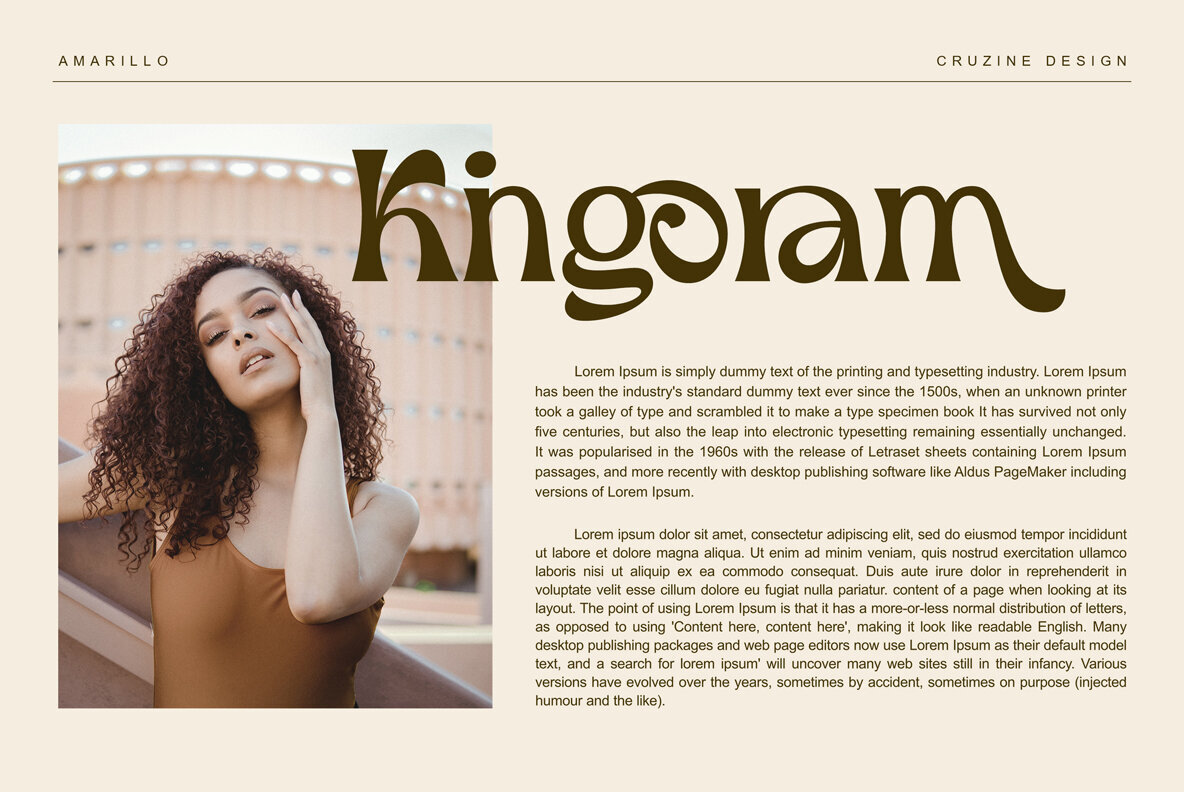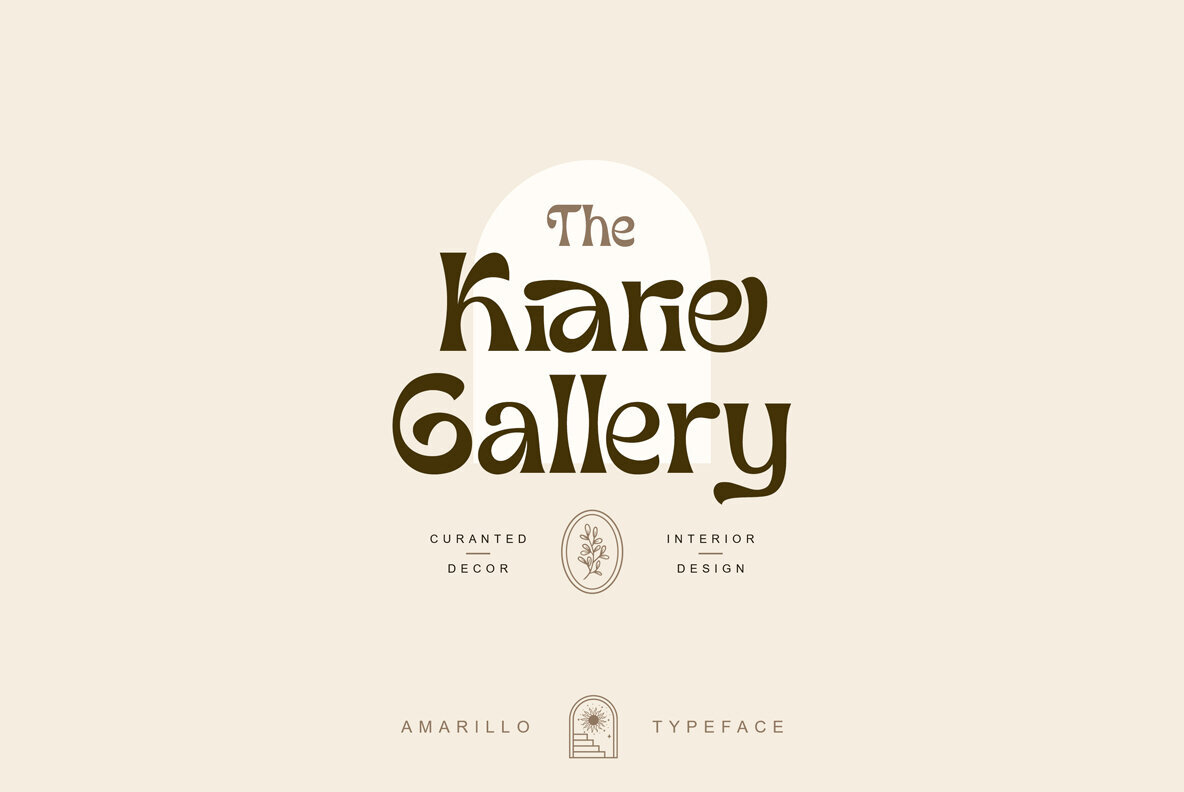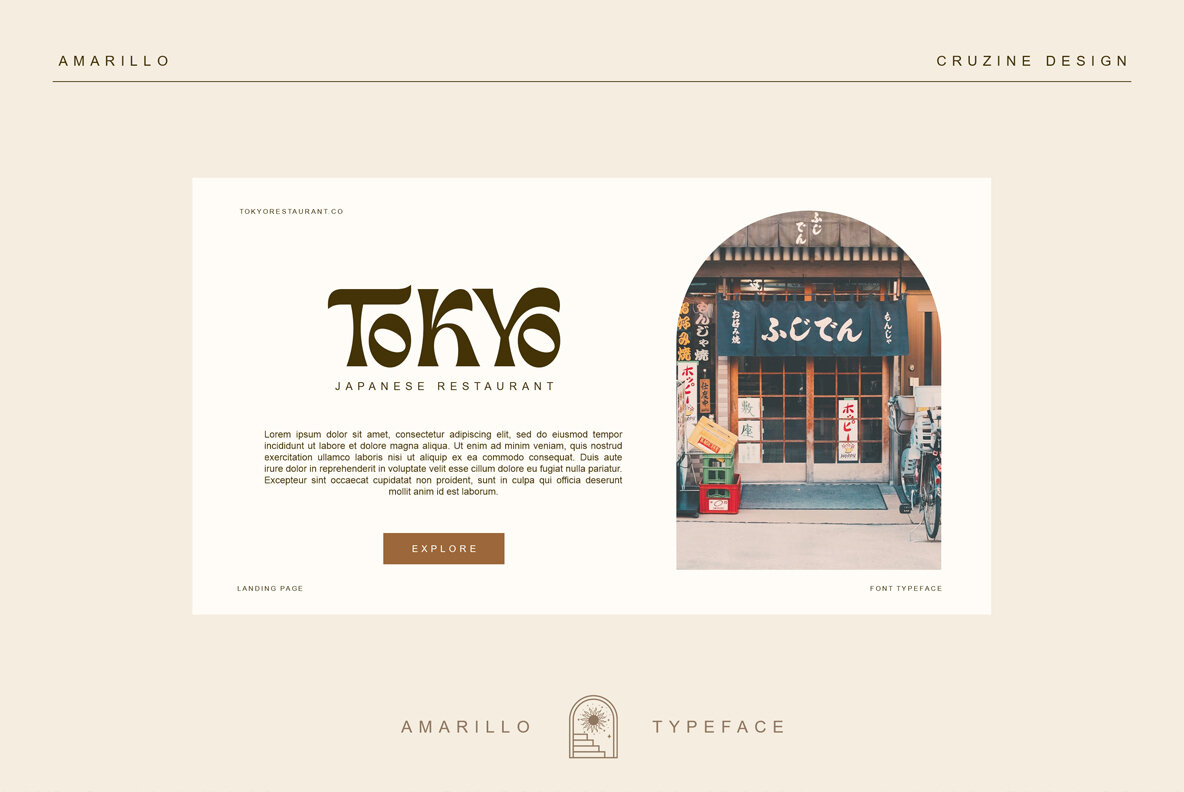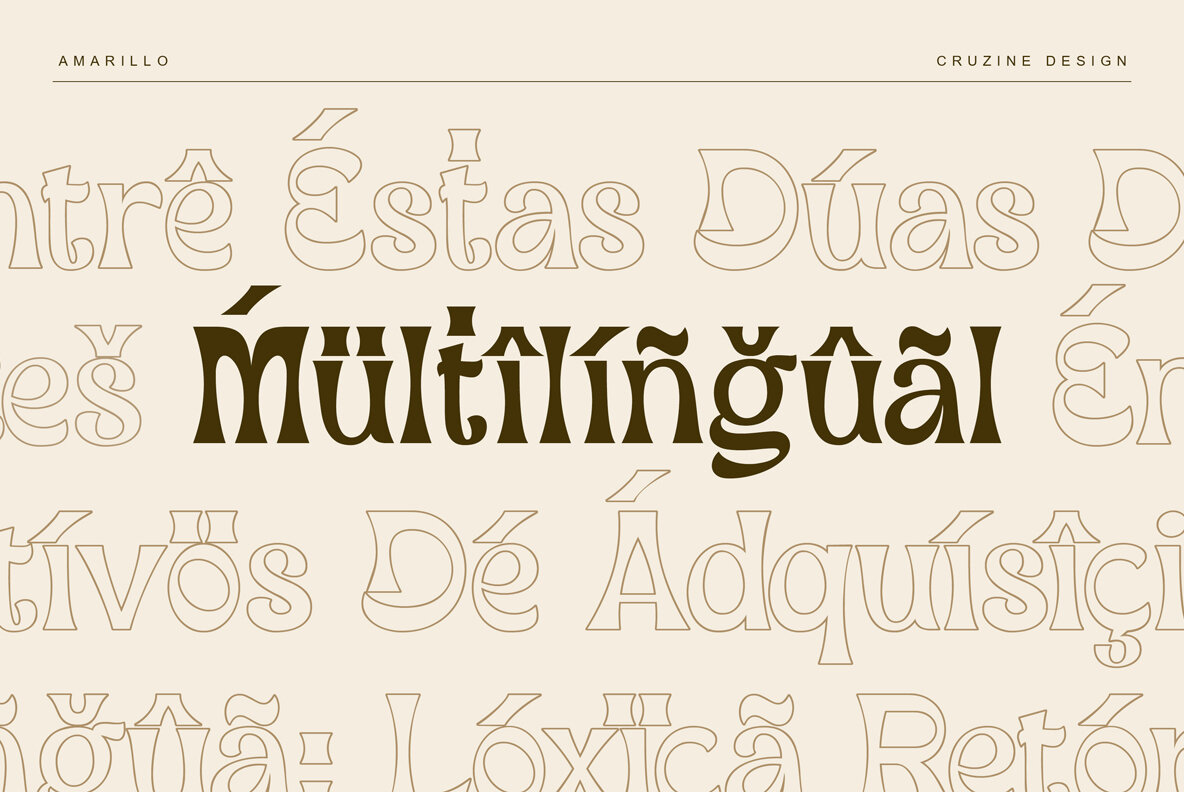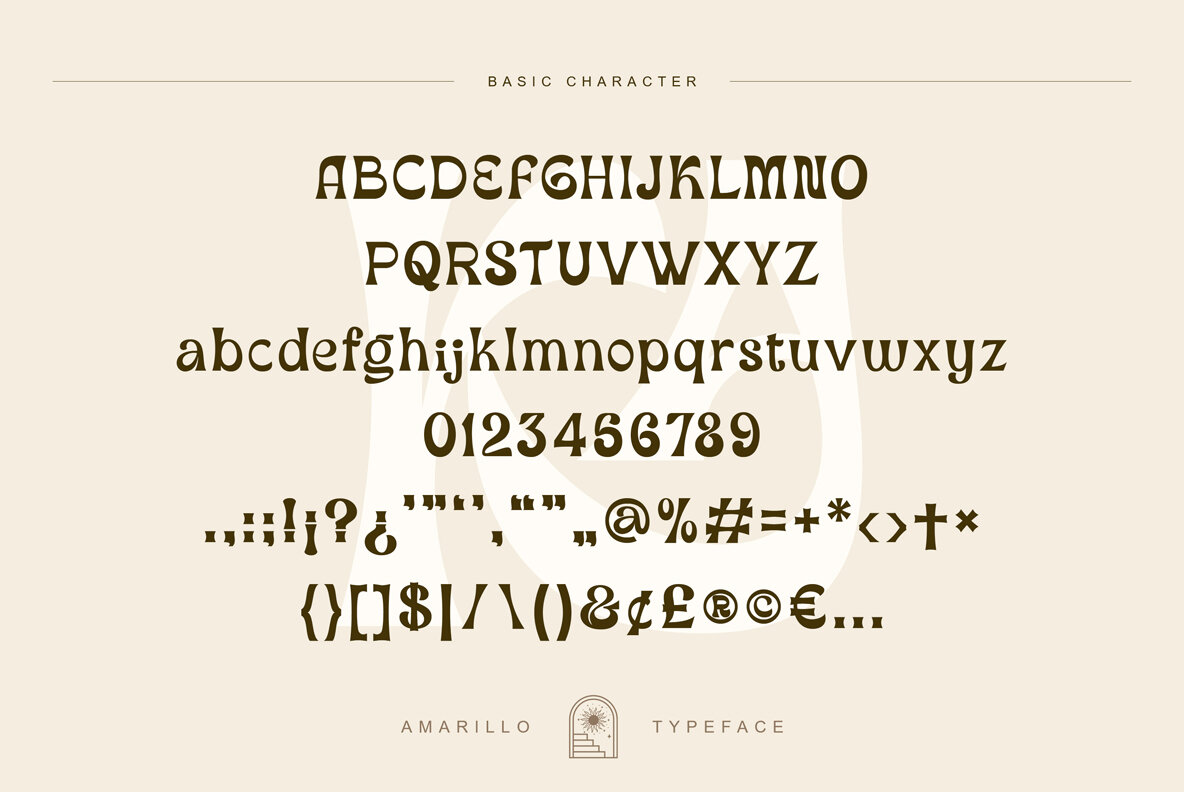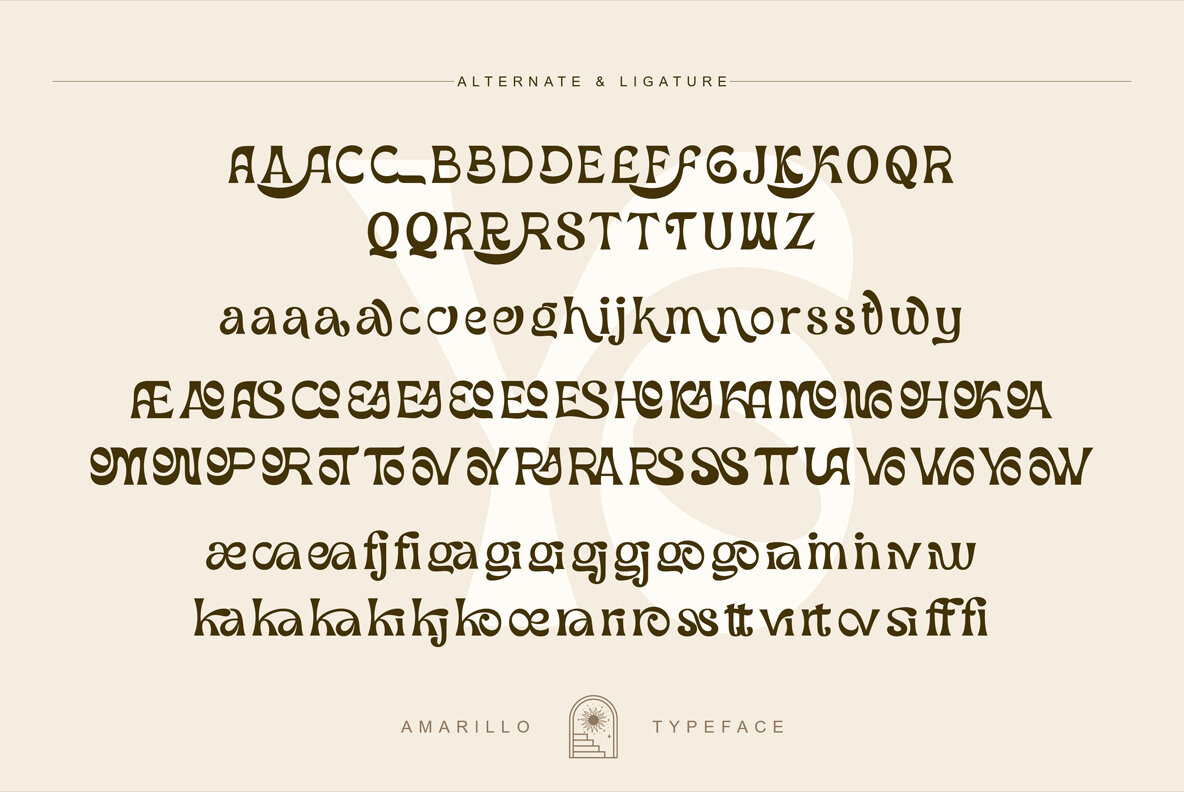
Amarillo Font
When you want to make an impression on the page and capture everyone's eyes with your project, the choice of font makes all the difference. It's time to show off your creativity and craft something original - without going too far from classic styling - with Amarillo! Amarillo is a modern sans font that strikes the perfect balance between boldness, elegance, and fun. With 3 styles – Regular, Italic, and Outline – as well as plenty of alternate characters and ligatures to choose from, this font will be sure to make your branding projects look striking and unique. Plus, it supports multiple languages so you don't need to worry about compatibility at all! Graphic designers and branding studios know how important choosing just the right font for their project is; Amarillo should be high on their list when making that all-important decision. Make professionalism cool again with Amarillo!